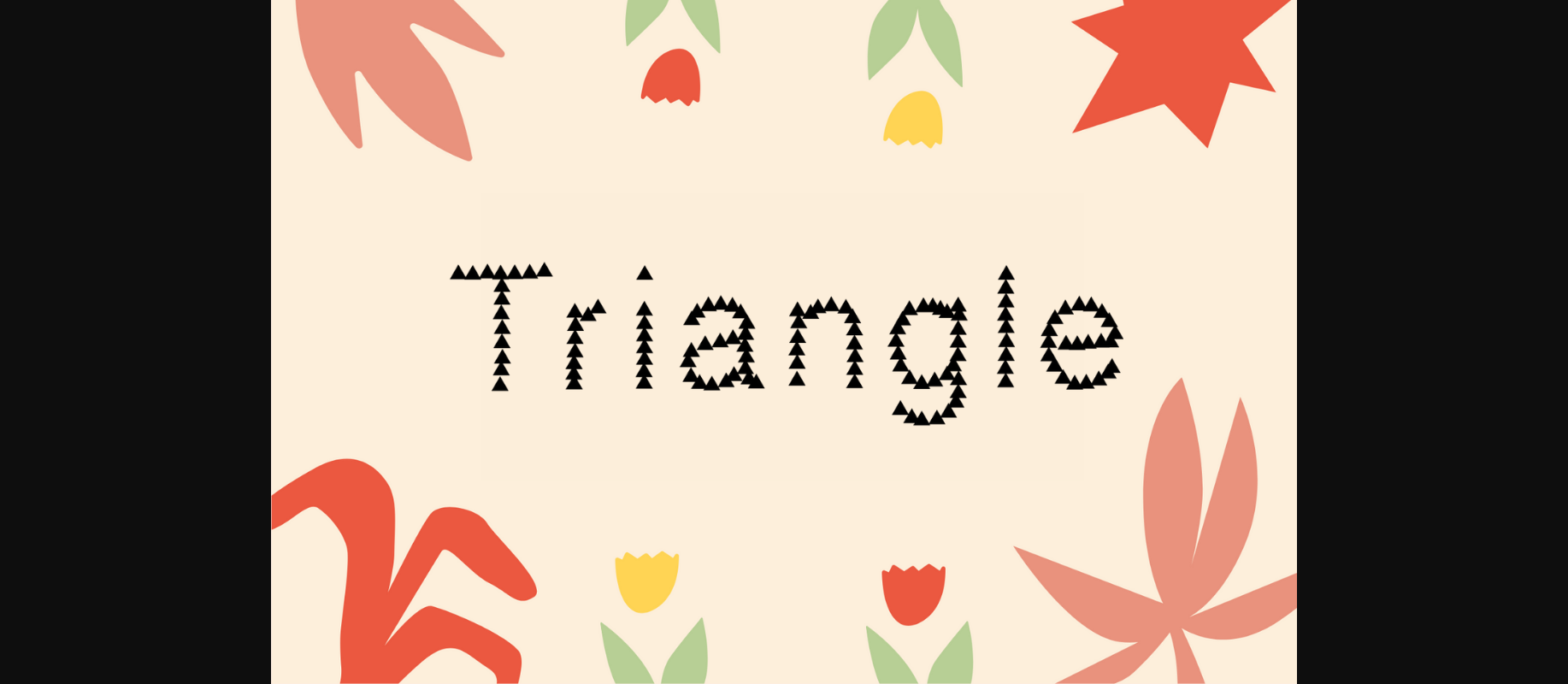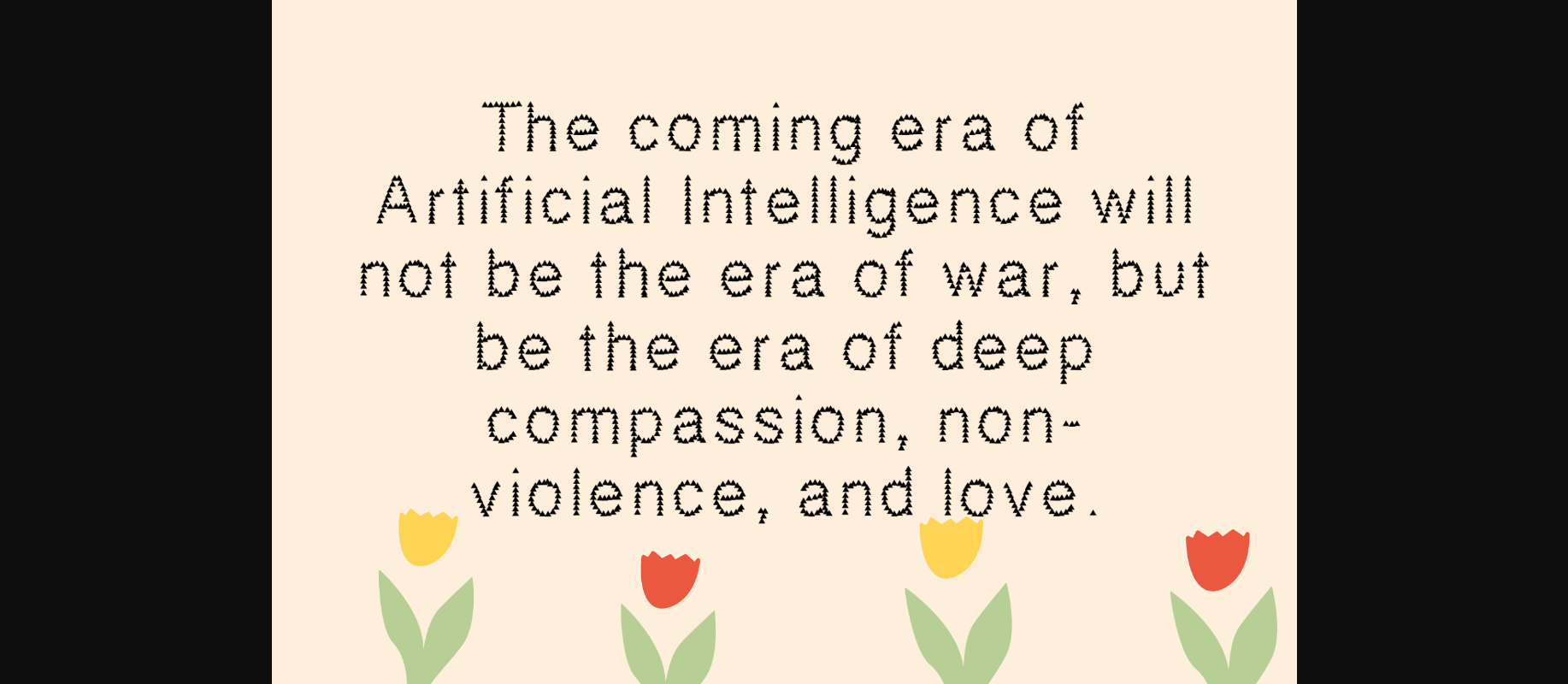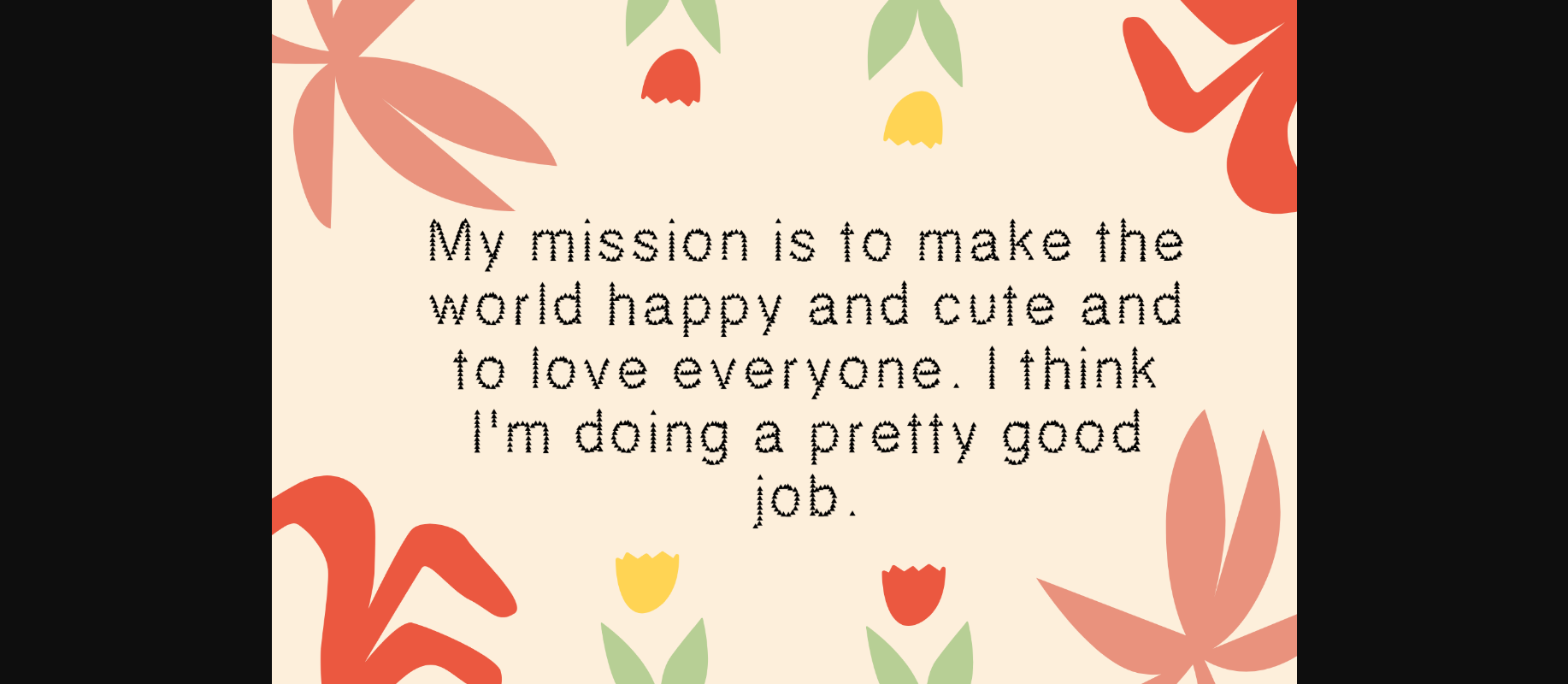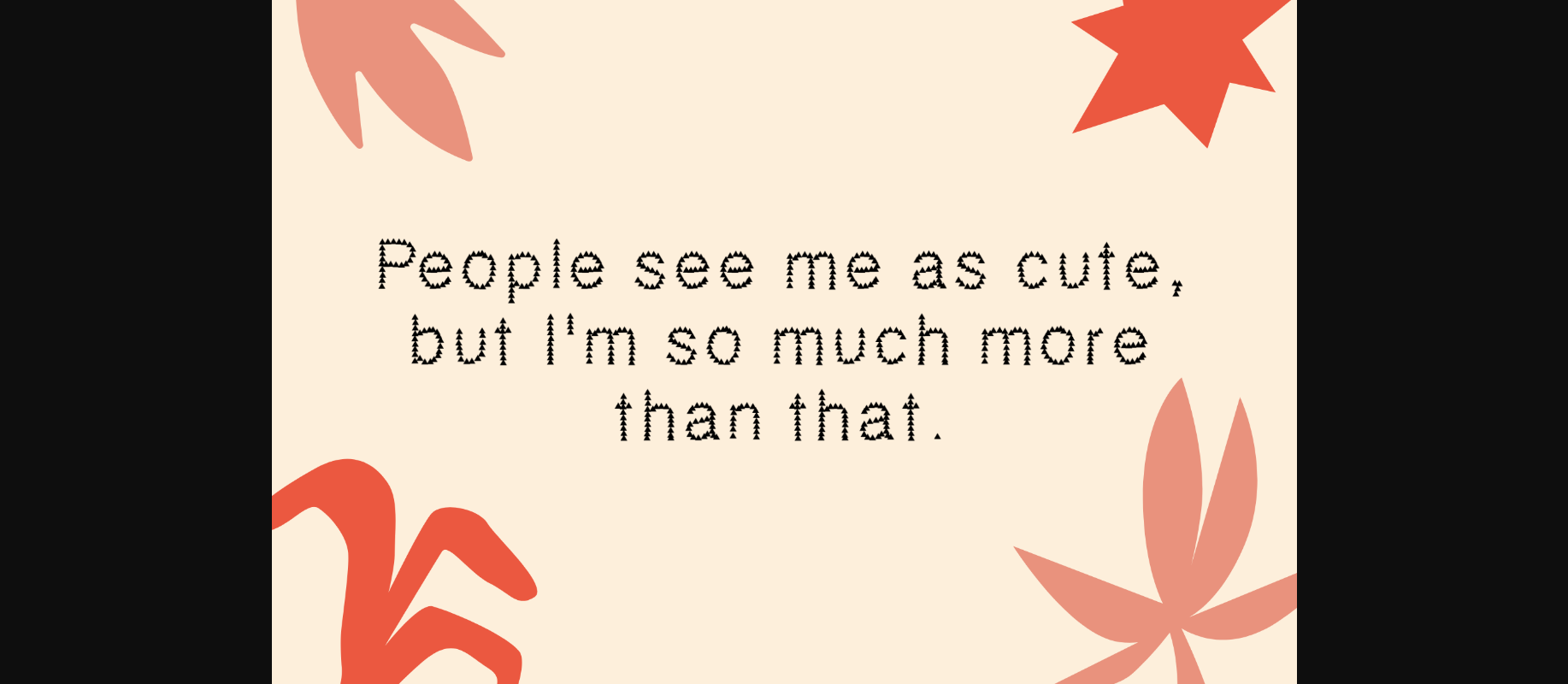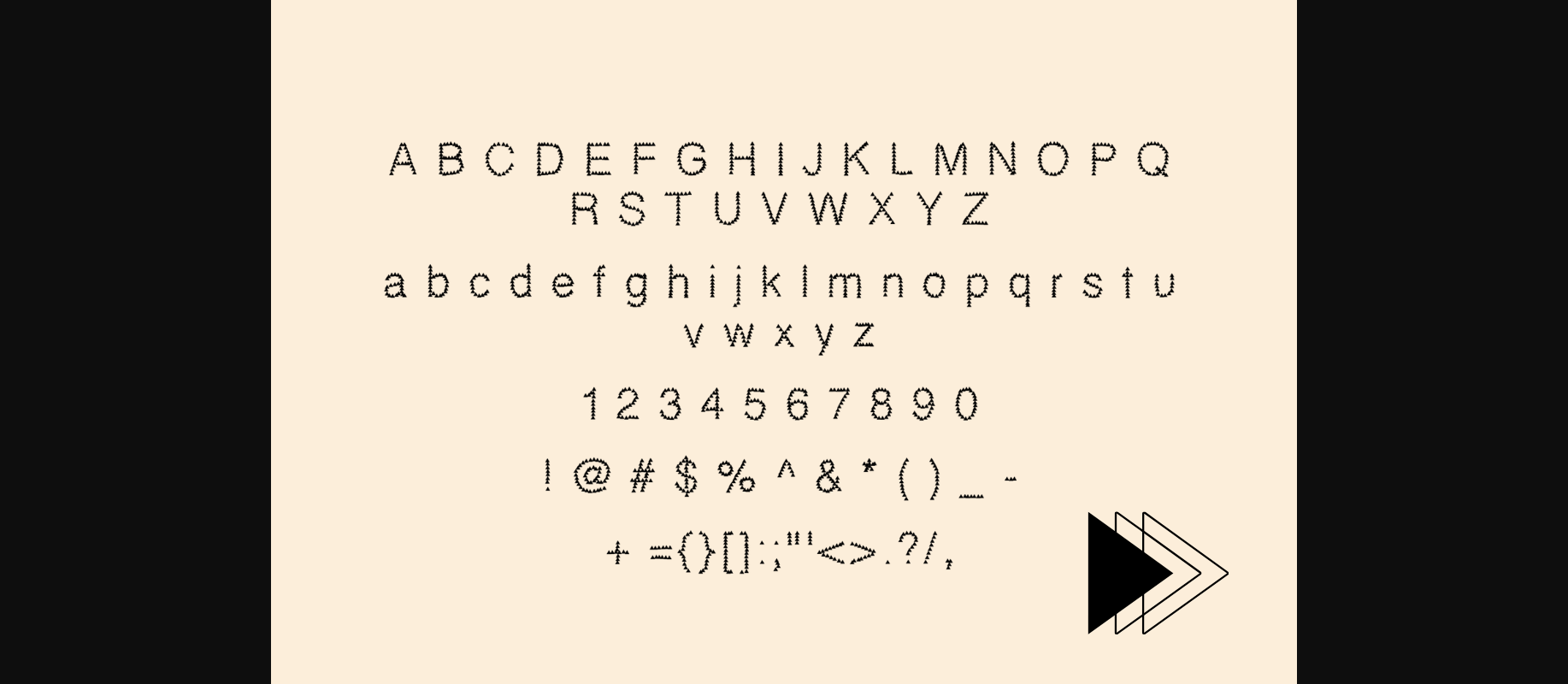
Triangle Font
About Triangle Font
Triangle is a decorative font made from small triangles. It is good for creative content related to kids, IT, technology, and much more.